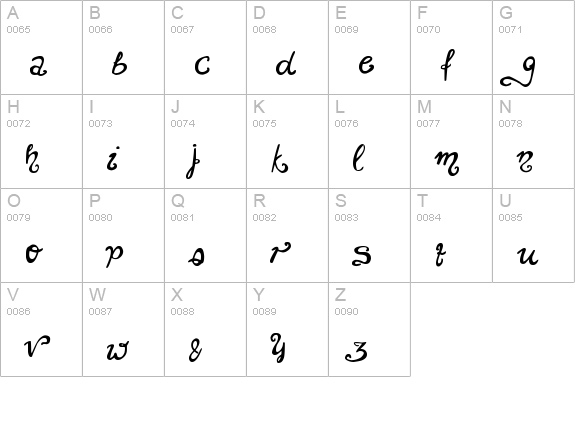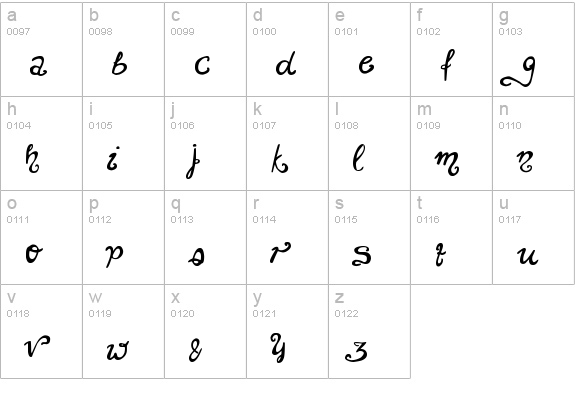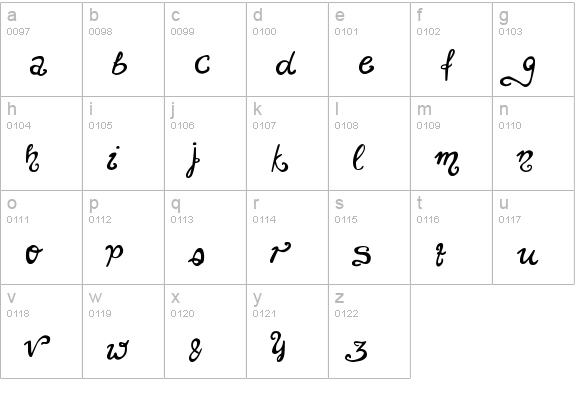
unchanged thoughts$ Font Details
Unchanged Thoughts font is a beautifully crafted typeface that exudes elegance and sophistication. Its timeless design is perfect for a wide range of projects, from branding to editorial design. The sleek lines and classic curves of this font will add a touch of sophistication to any design project. This font is freely available to download at FontsMarket.com, making it accessible to designers and creatives looking to elevate their work with a touch of timeless elegance. Whether you're working on a branding project, a magazine layout, or a poster design, Unchanged Thoughts font is sure to make a lasting impression. With its versatility and classic appeal, Unchanged Thoughts font is a must-have in any designer's toolkit. Download it today from FontsMarket.com and see how this font can enhance your next project with its timeless beauty and sophistication.